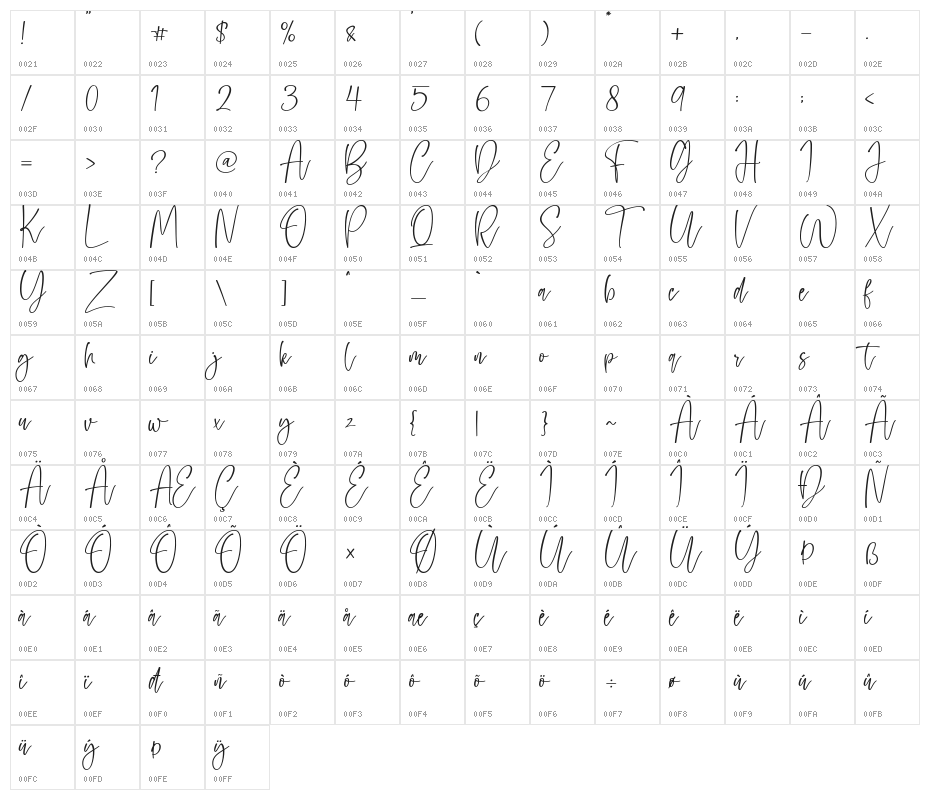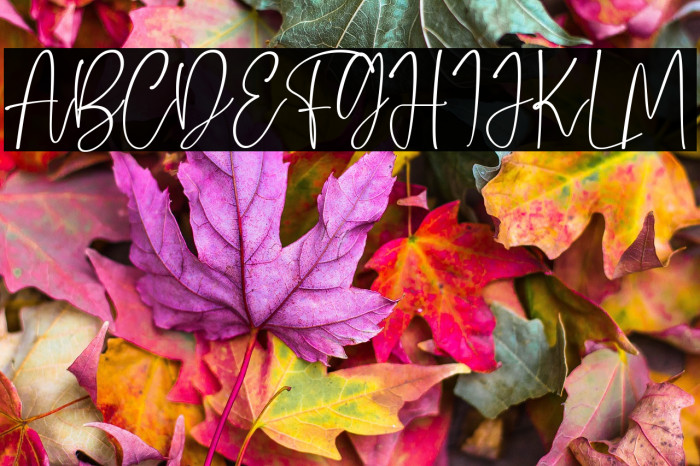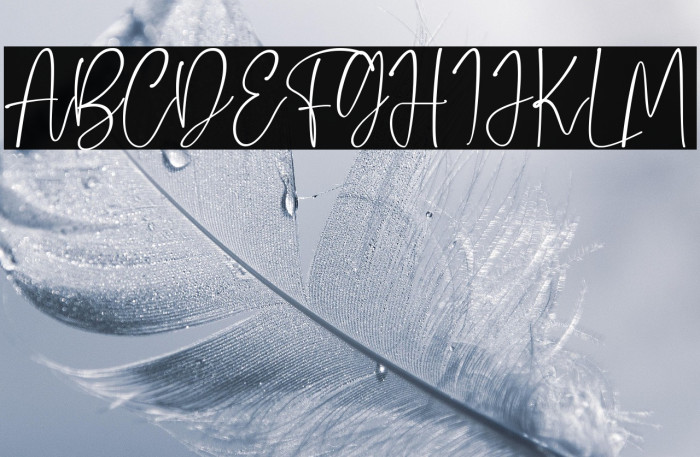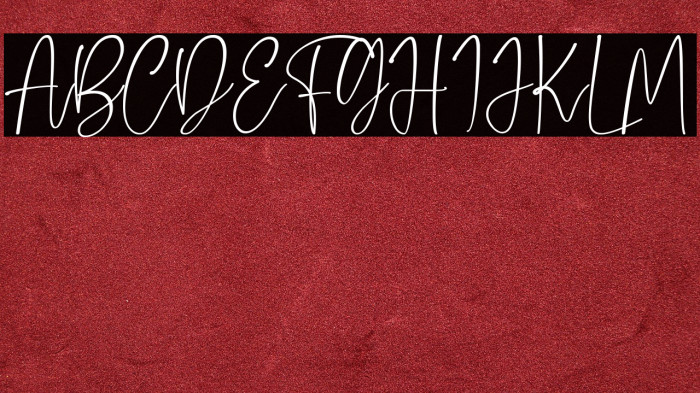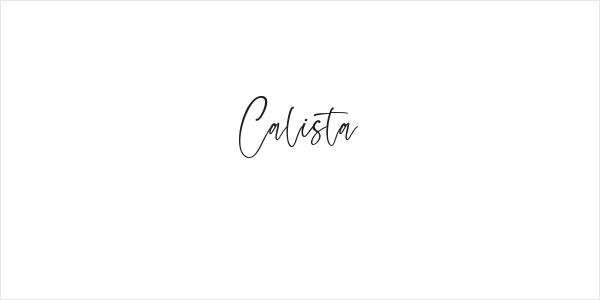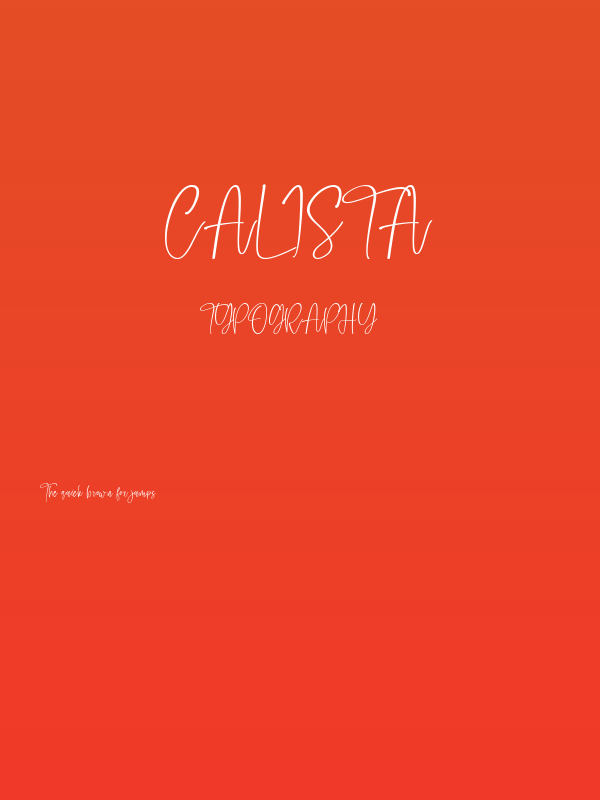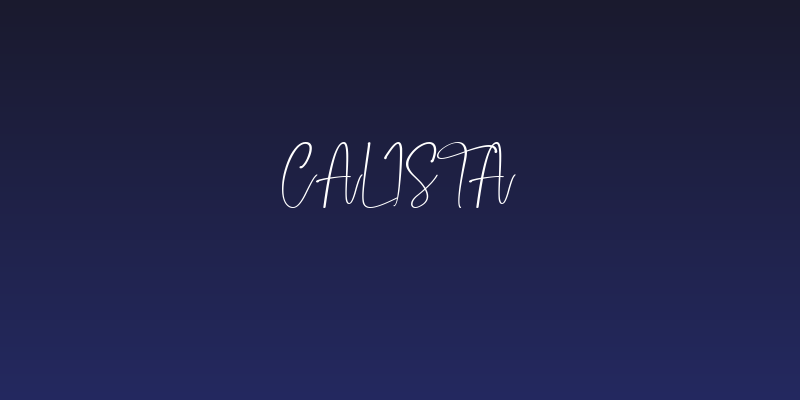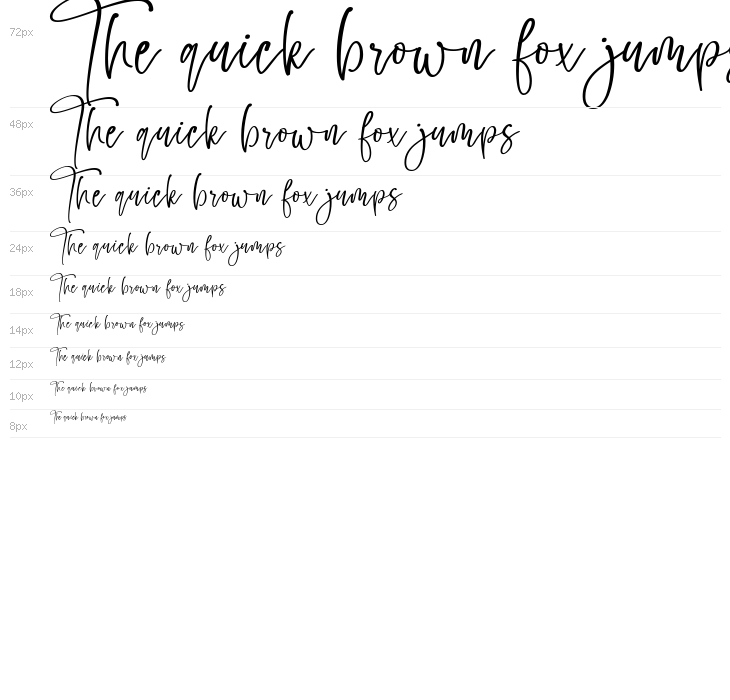
Calista Font
Calista Description
This font exudes a charming and whimsical handwritten style, characterized by its flowing and interconnected letterforms. The uppercase letters are tall and elegant, with a slight slant that adds a dynamic feel. The lowercase letters are more compact, maintaining a consistent flow that mimics natural handwriting. Numbers are crafted with a playful touch, complementing the overall aesthetic. Special characters are thoughtfully designed, ensuring they blend seamlessly with the rest of the font. The strokes are smooth and consistent, with a medium contrast that enhances readability while retaining a personal touch. This font is perfect for projects that require a personal, artistic flair.